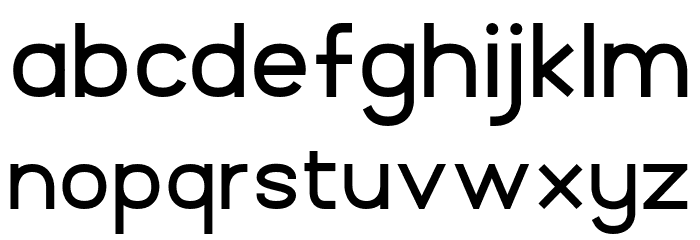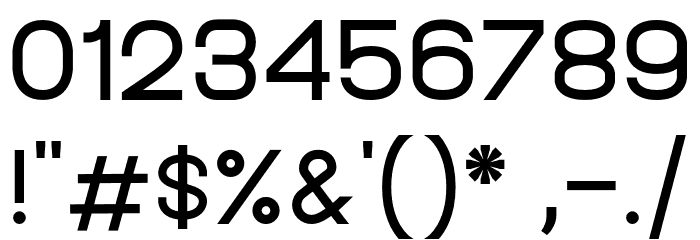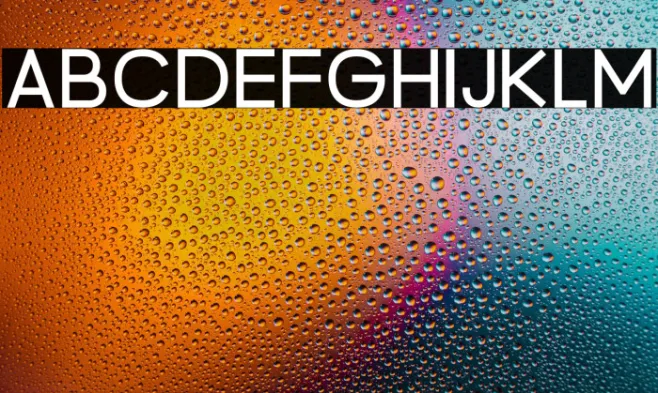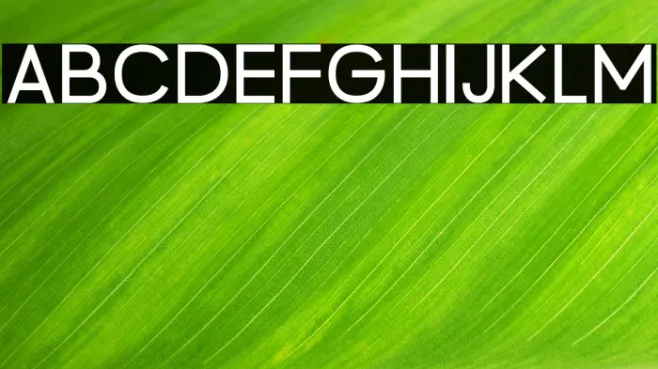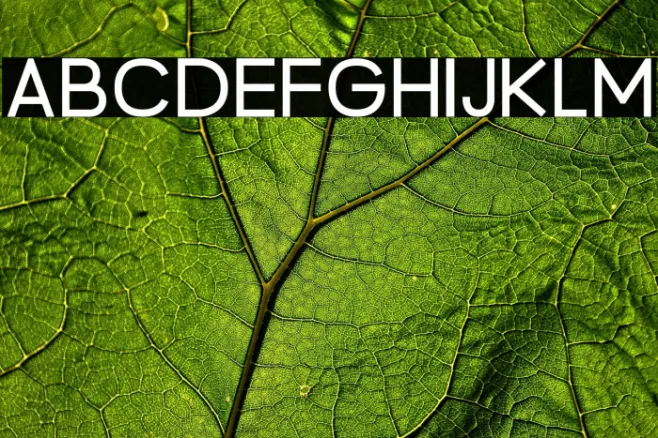
BrandingPro Font
This font features a clean and modern sans-serif design, characterized by its geometric shapes and uniform stroke widths. The uppercase letters are bold and assertive, while the lowercase letters maintain a consistent and harmonious appearance. The numerals are clear and easily distinguishable, making them suitable for both digital and print applications. Special characters are well-defined, enhancing the font's versatility. Its simplicity and clarity make it ideal for branding, advertising, and user interface design.
- Font: BrandingPro
- Proposed Projects: Ideal for branding, advertising, user interfaces, and digital media projects.